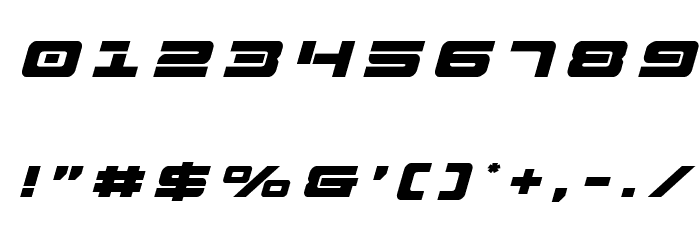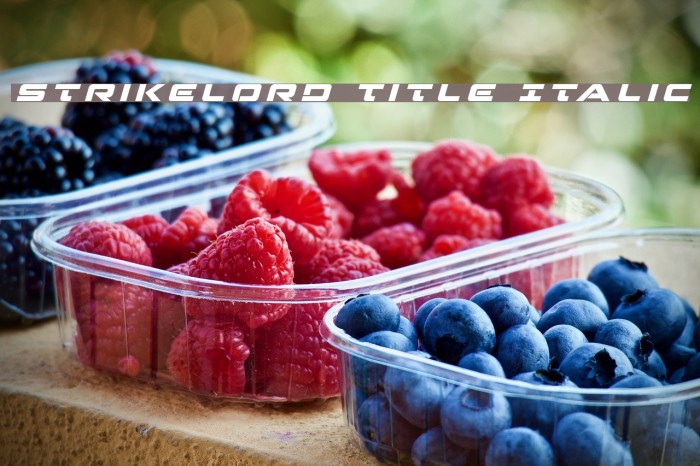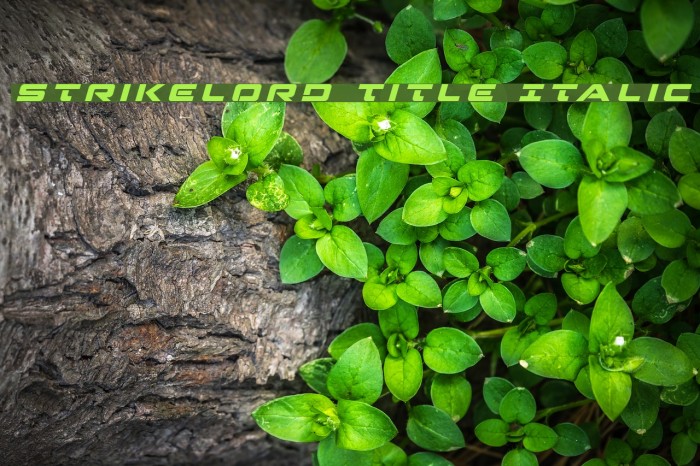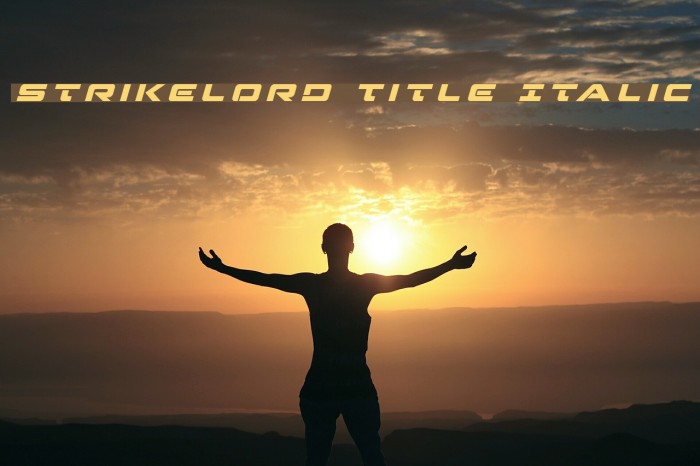
Strikelord Title Italic Font
This font features a bold, italicized style with a futuristic and dynamic appearance. The characters are slightly slanted, giving a sense of motion and speed. The design includes sharp angles and clean lines, creating a modern and edgy look. The uppercase and lowercase letters maintain a consistent style, with a uniform stroke width that adds to the boldness of the font. The numerals and special characters are designed to match the overall aesthetic, ensuring a cohesive look across all text elements.
• Proposed Projects: Ideal for projects that require a modern and edgy look, such as technology branding, sports team logos, or sci-fi themed designs.